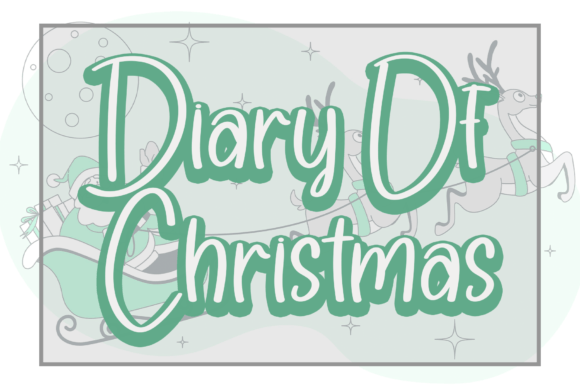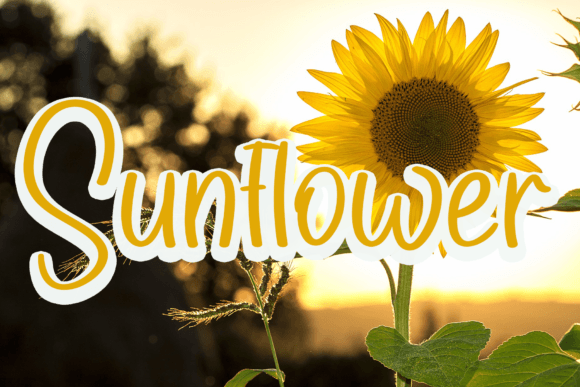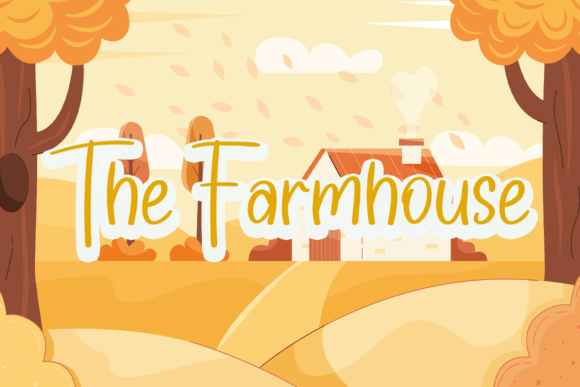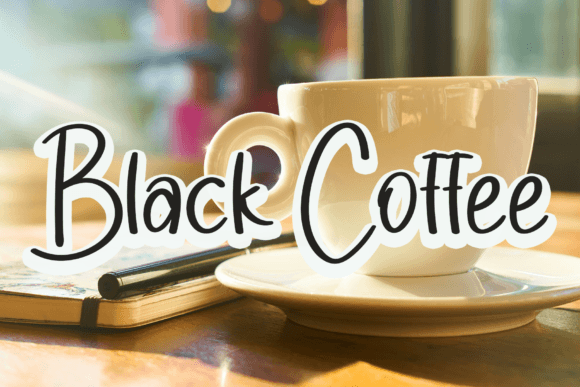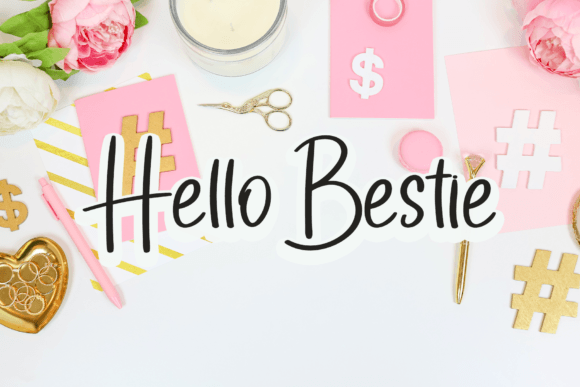
Diary of Christmas Font
Diary of Christmas Font Download – Simple Friendly Handwritten Script
The Diary of Christmas Font download is a simple handwritten script that brings warmth and charm to your projects. With its friendly strokes and casual feel, this font adapts well to both seasonal and everyday designs. Because of its versatility, it is perfect for crafts, posters, greeting cards, and social media content.
Simple and Friendly Style
Diary of Christmas features balanced lines and approachable curves. As a result, your text looks warm and inviting. In addition, its simple design makes it suitable for a wide variety of creative uses.
From Christmas cards to personal invitations, this font adds a heartfelt and festive touch. It makes each message feel more personal and unique. Therefore, it is an excellent choice for stationery and seasonal projects.
Diary of Christmas Font Download for Posters and T-Shirts
The Diary of Christmas Font download is also great for posters, t-shirts, and stickers. Its casual strokes give your text a playful vibe, making designs stand out in both print and digital form.
Logos and Holiday Branding
Logos, product labels, and branding campaigns benefit from this typeface. Its handwritten qualities give brands a cheerful, approachable personality while keeping text clear.
Versatility in DIY and Digital Projects
From digital artwork to DIY crafts, this font adapts seamlessly across formats. In addition, its friendly handwritten look makes it flexible for both professional and casual design projects.
Why Add This Handwritten Script to Your Collection?
The Diary of ChristmasFont download is versatile, cheerful, and easy to use. In other words, it works equally well for festive projects and everyday creations. Finally, it is a handwritten script that adds joy and charm to every design.